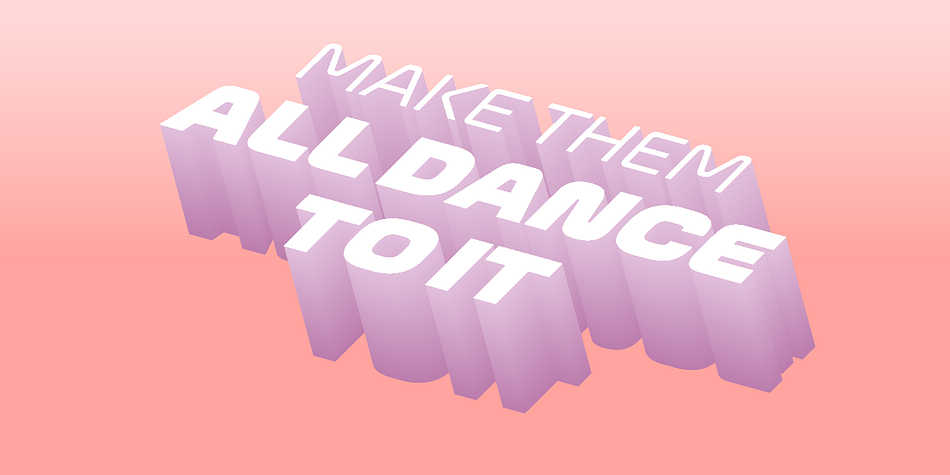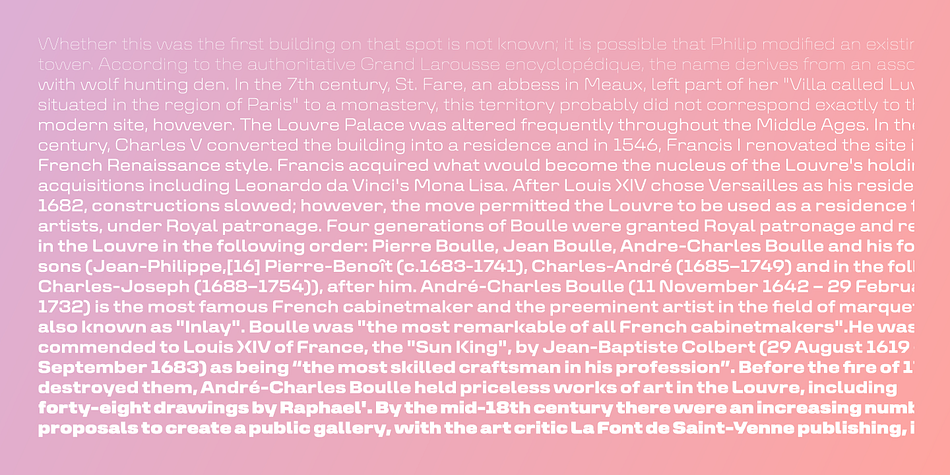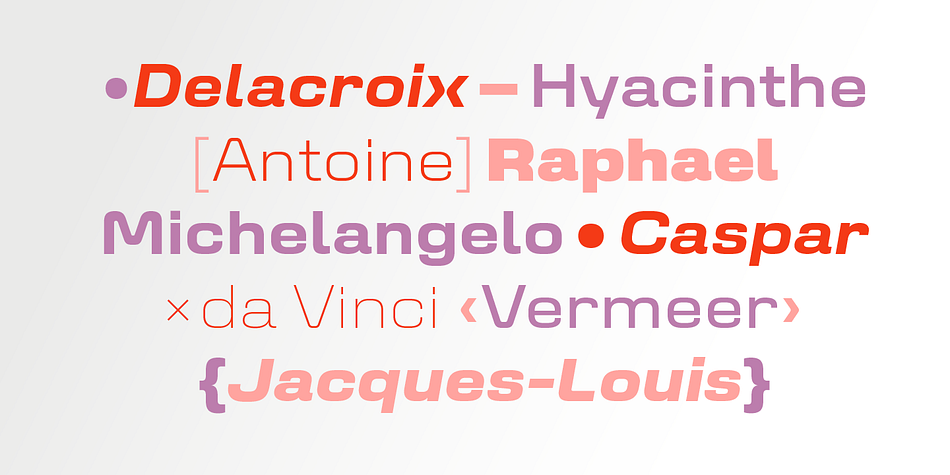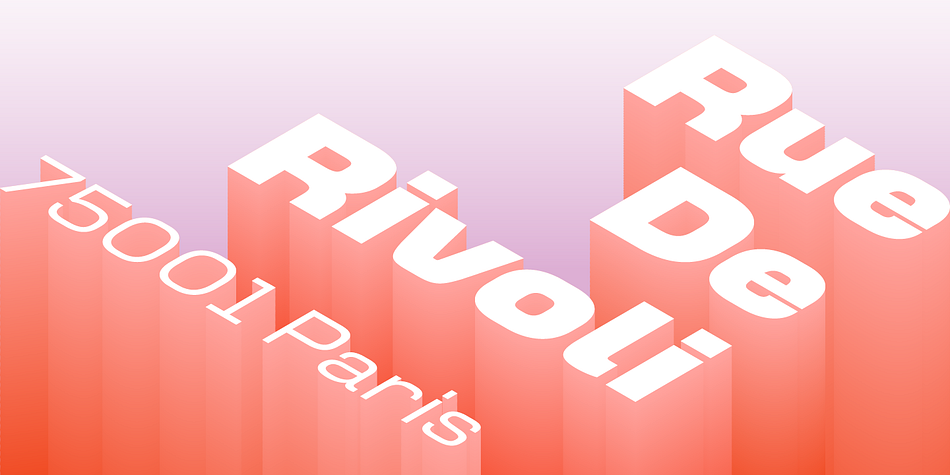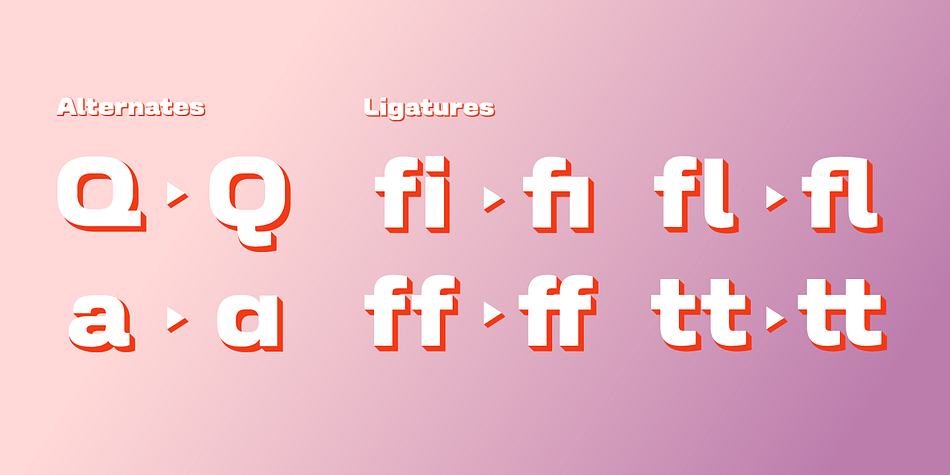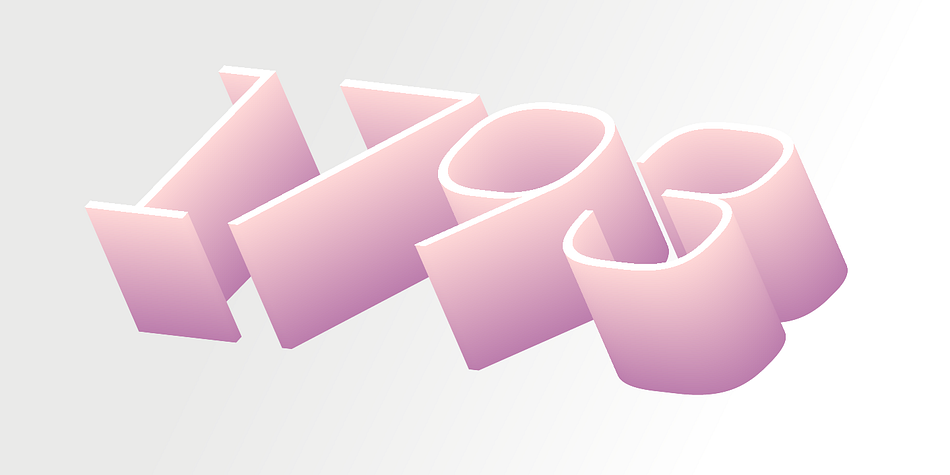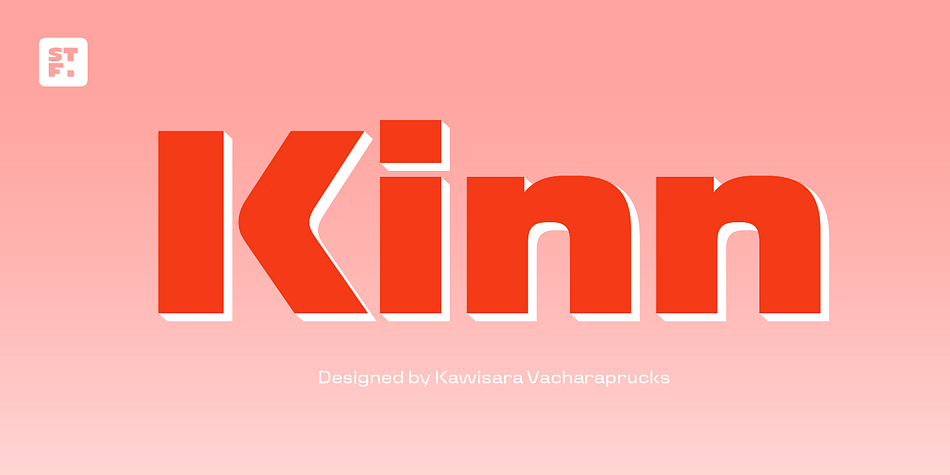
Designed by Kawisara Vacharaprucks, Kinn is a sans serif font family. This typeface has eighteen styles and was published by Stawix.
Kinn is an industrial sans serif typeface with an essence of squared structure inspired by a futuristic look. Kinn is robust but portray a friendly touch with a little roundness to its shape, it can also be very formal when it needs to but it is flexible and fun to use at the same time. Its wide proportion makes it ideally suited a wide range of modern applications and variety of usage from heavy display, headlines or even text.
Kinn comes in 9 consecutive weights, each weight accompany with italics. Equipped with Alternates, Ligatures and 10 Cryptocurrency signs